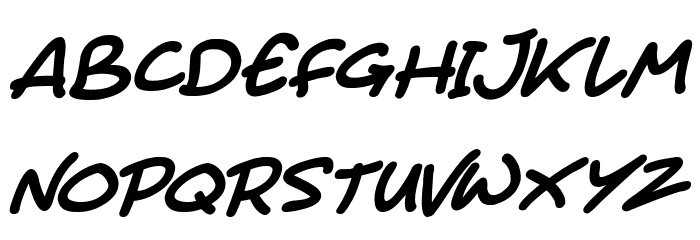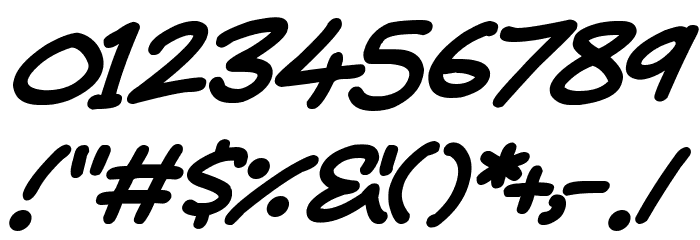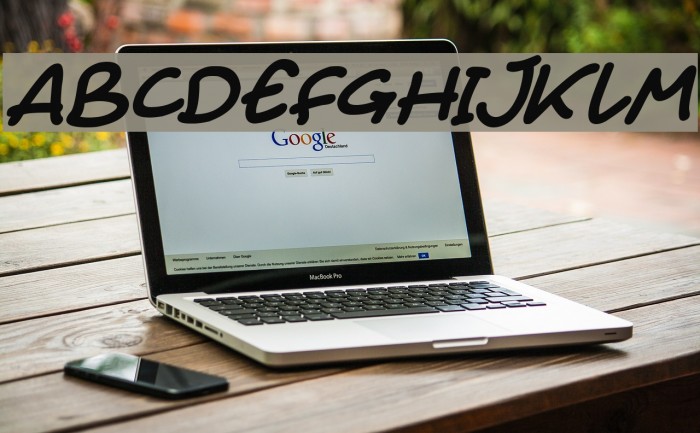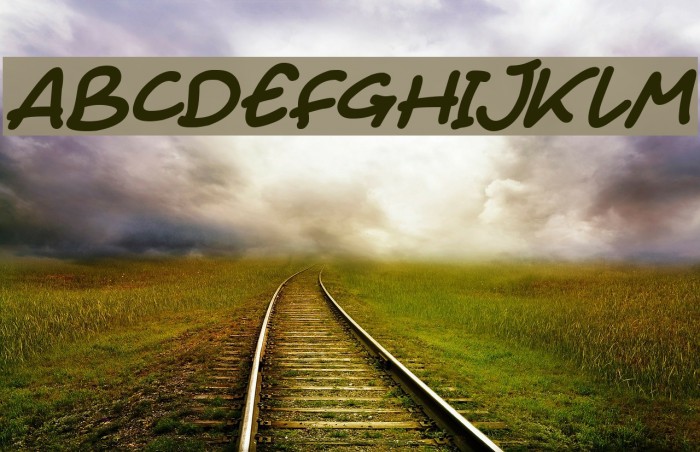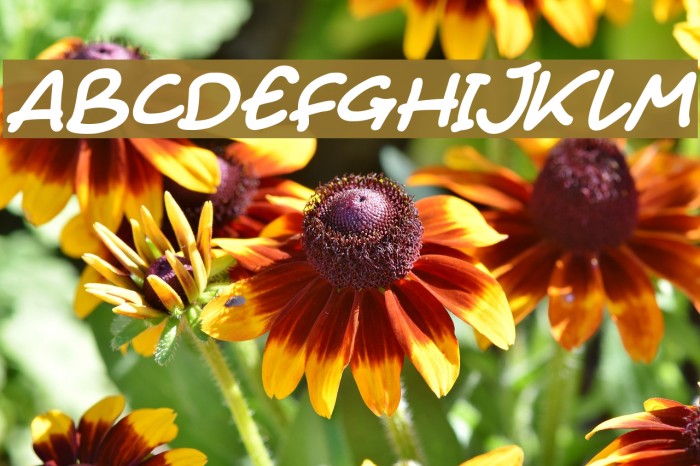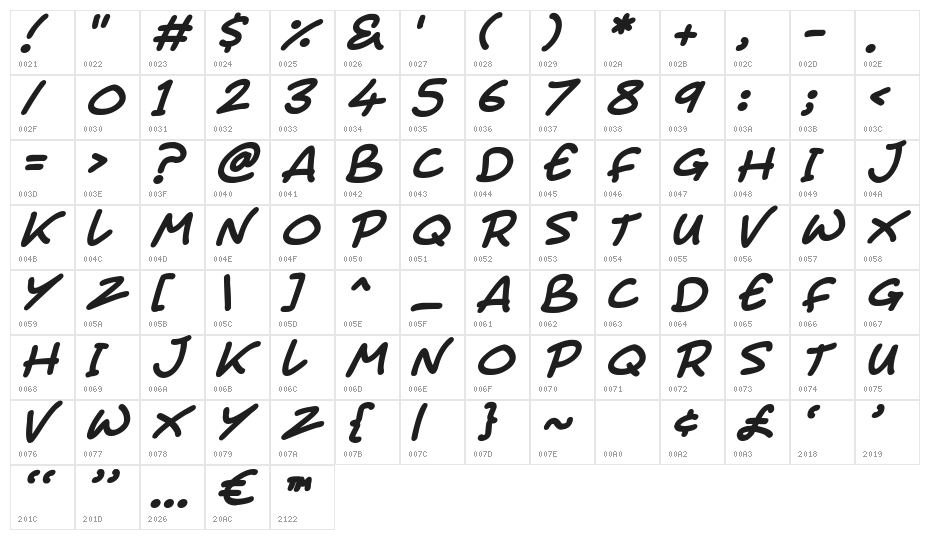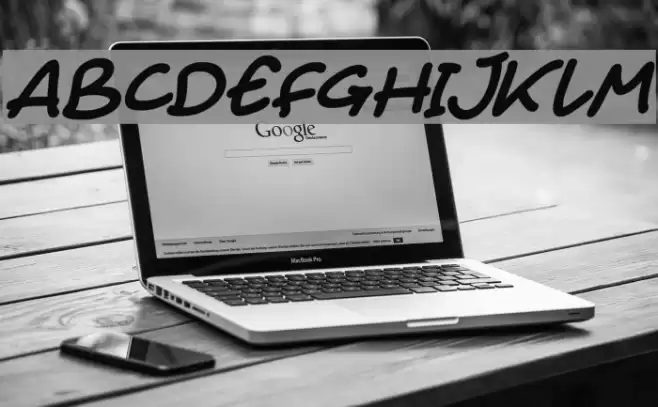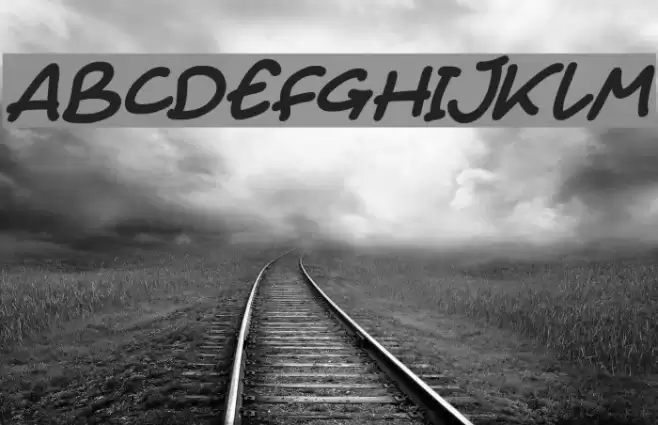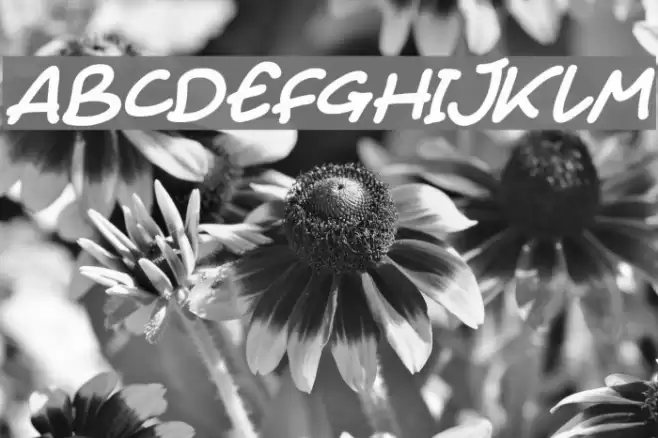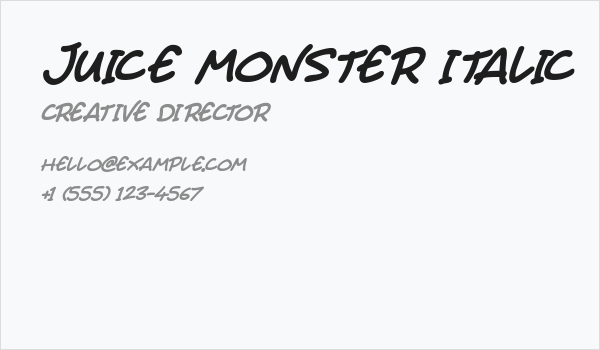
Juice Monster Italic Font
This font features a bold, energetic script style with a playful and dynamic appearance. The letters are slightly slanted, giving it an italicized look that enhances its lively character. The strokes are thick and consistent, providing a strong visual impact. The font maintains a casual yet assertive tone, making it suitable for attention-grabbing designs. The characters are well-spaced, ensuring readability while maintaining the font's unique flair. Its rounded edges and smooth curves contribute to its approachable and friendly aesthetic.
A bold, italic script font with a playful and dynamic style.
- Proposed Projects: Ideal for branding, posters, merchandise, and any design needing a bold, energetic touch.